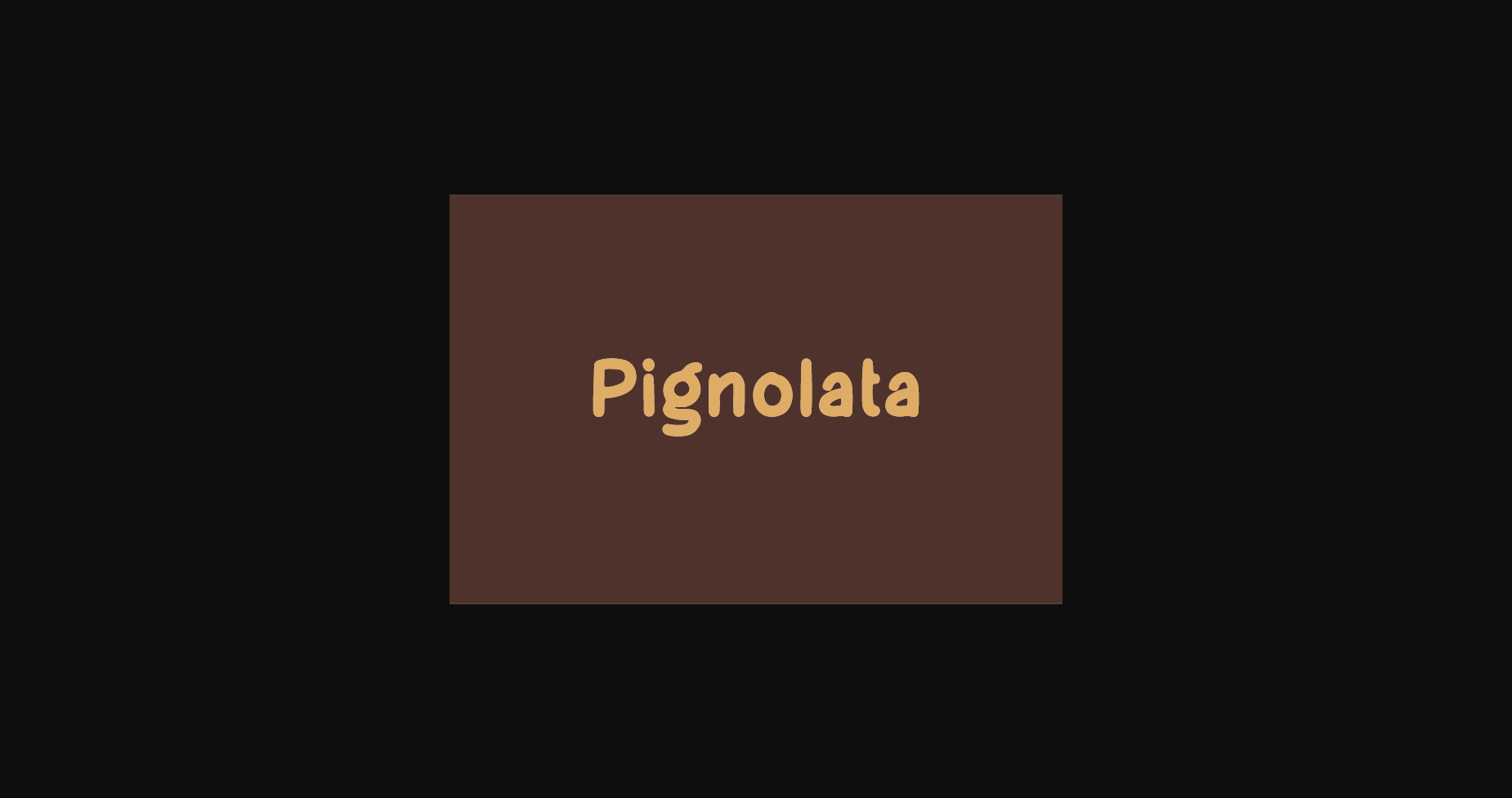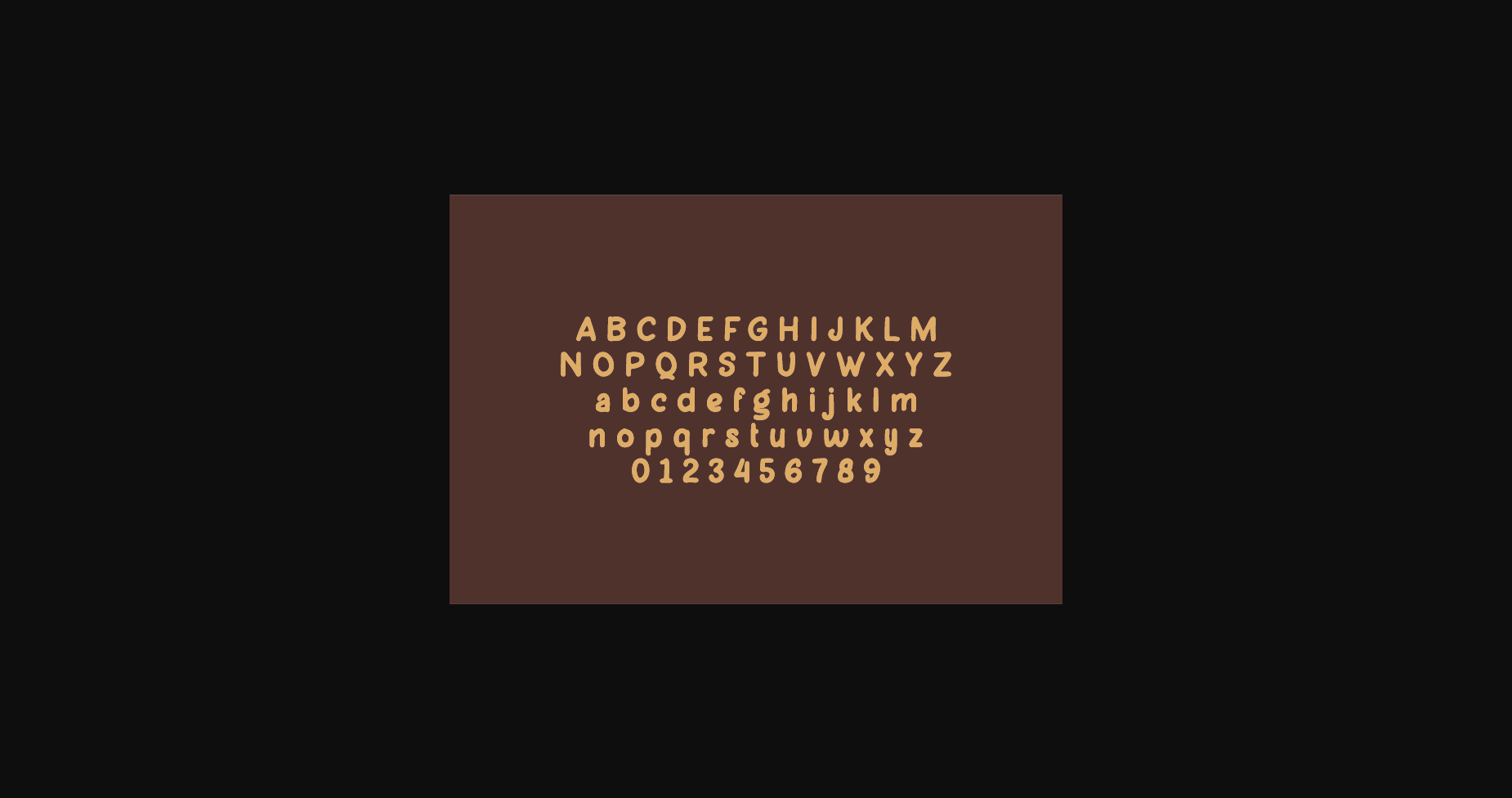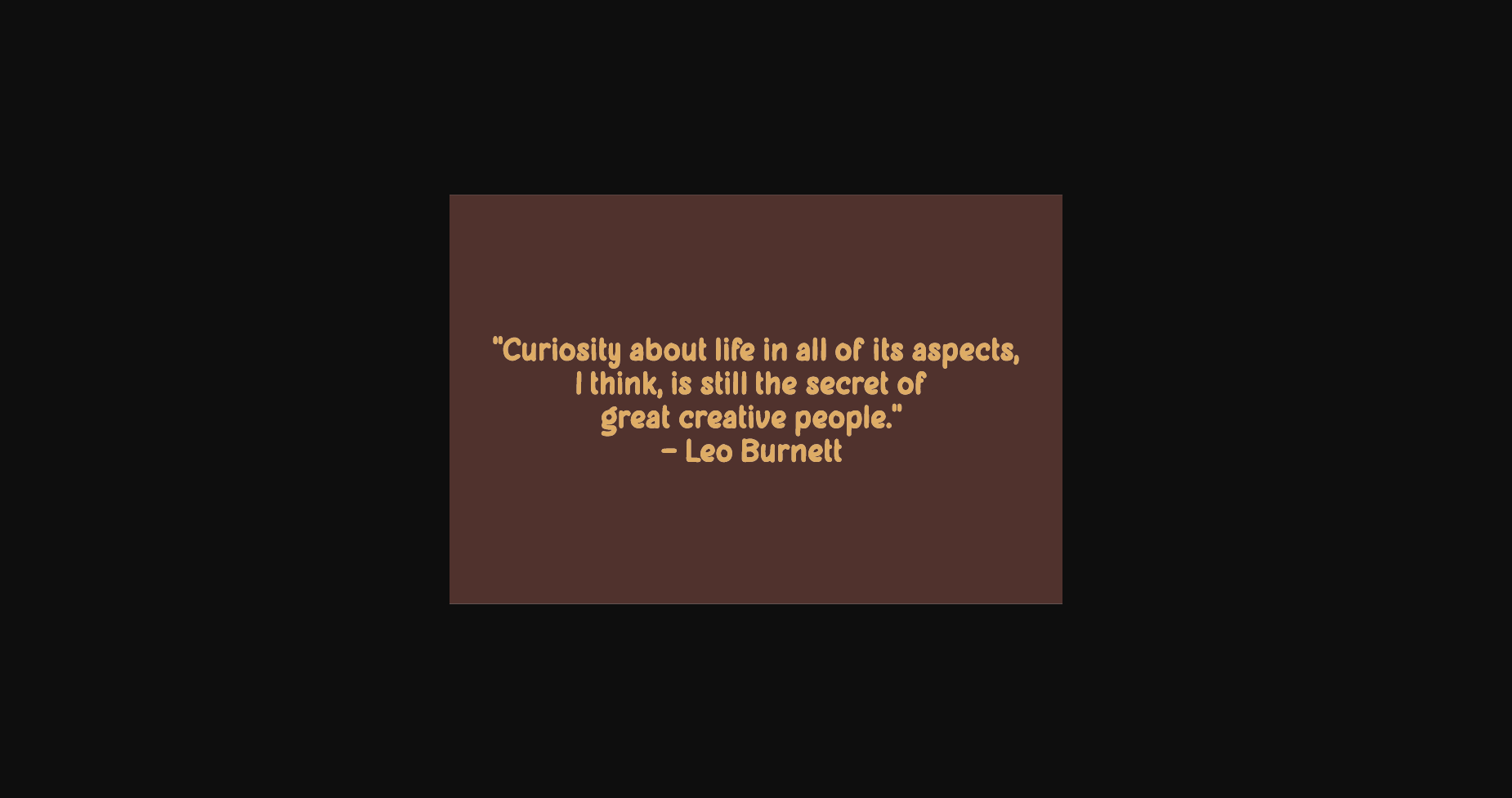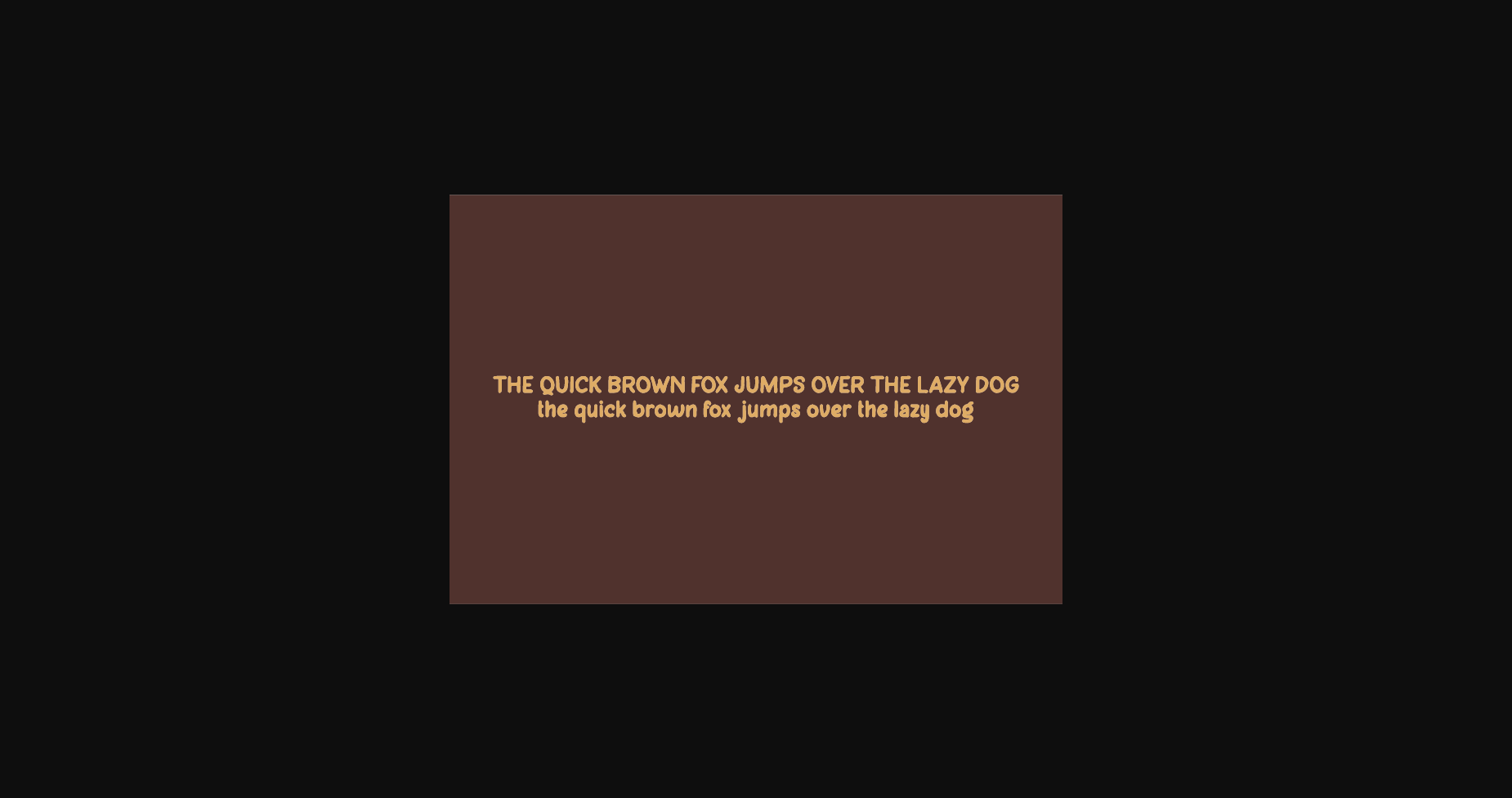
Pignolata Font
About Pignolata Font
Pignolata is a natural sans serif font without changing a single node in each character’s indentation. This makes this font very interesting and unique. Perfect for quotes, notes, tees, and any product design.